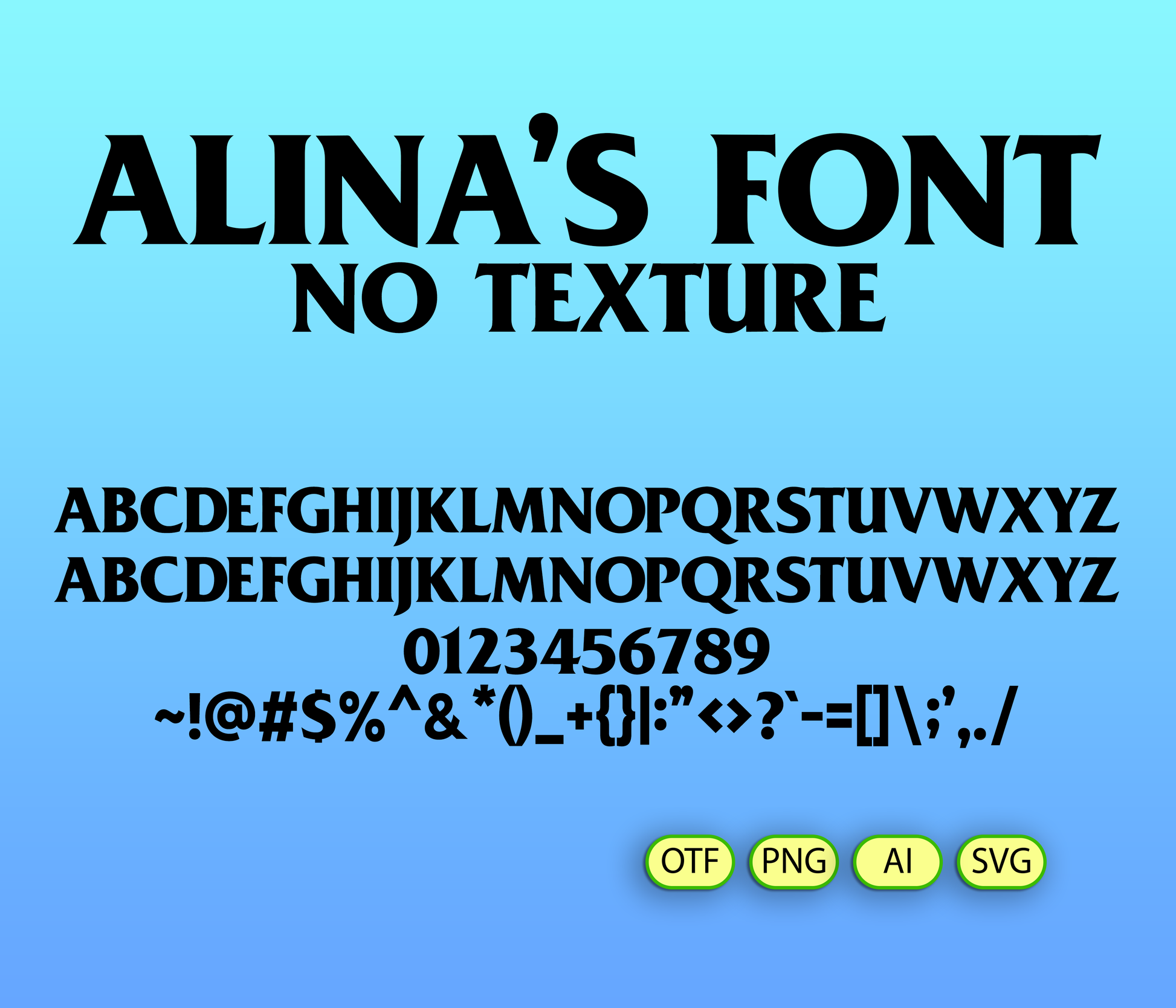
Dragon Riders Font
Soar to New Heights with the Dragon Riders-Inspired Font
Embark on a new adventure with our Dragon Riders-inspired font, capturing the magic and excitement of a beloved animated film series. Perfect for fans, event planners, and designers looking to infuse their projects with the heroic and whimsical essence of dragon-riding heroes and their mythical companions, this font brings the enchanting and courageous spirit of the series to your designs. Whether you're creating event invitations, designing themed merchandise, or crafting digital content, our Dragon Riders font ensures your projects resonate with the timeless magic and adventure of this beloved franchise.
Our Dragon Riders-inspired font features bold, dynamic lines and whimsical characters that reflect the fantastical and adventurous style of the series. This versatile font is ideal for a variety of applications:
1. Event Invitations: Perfect for creating captivating invites for movie nights, themed parties, or fantasy events.
2. Merchandise Design: Ideal for designing t-shirts, posters, and accessories that capture the essence of Dragon Riders.
3. Digital Media: Enhance websites, blogs, and social media content with vibrant headers and graphics.
4. Educational Materials: Use in presentations, worksheets, and educational content focused on storytelling, mythology, or animation.
5. Personal Projects: Add a touch of adventure to scrapbooking, DIY crafts, or home decor inspired by the world of dragons.